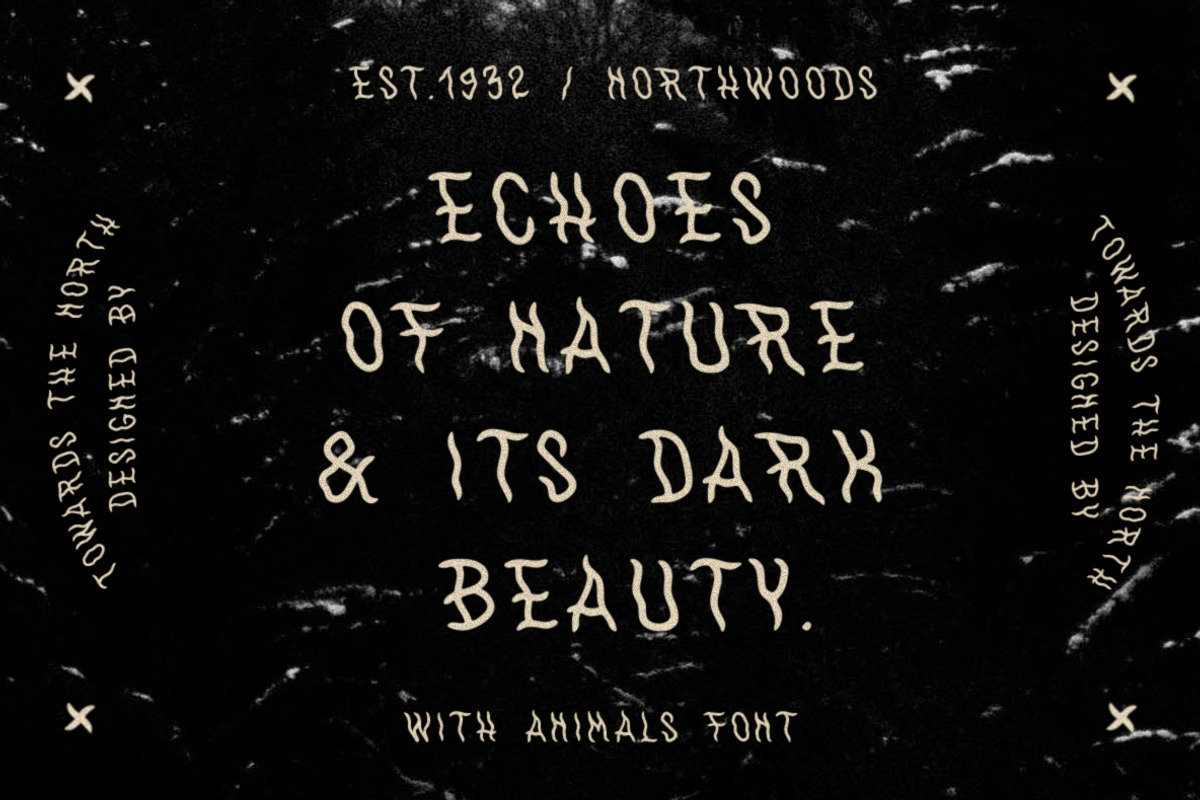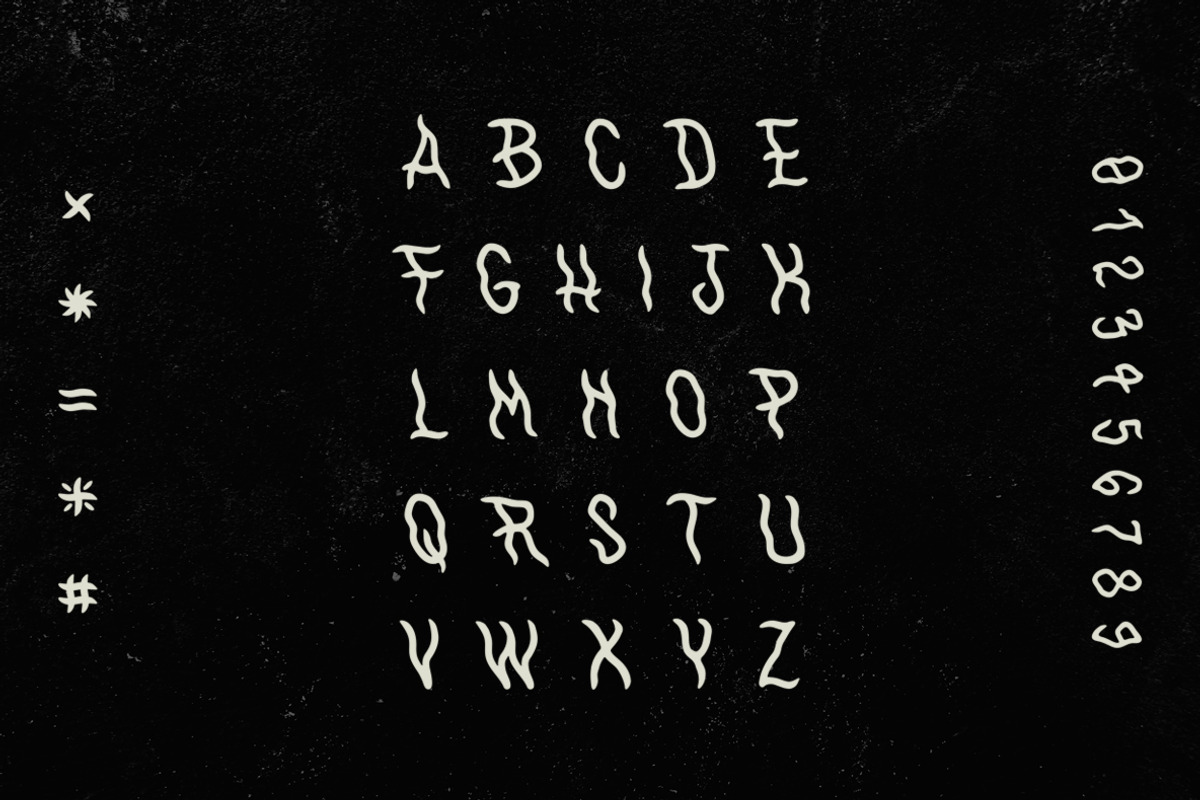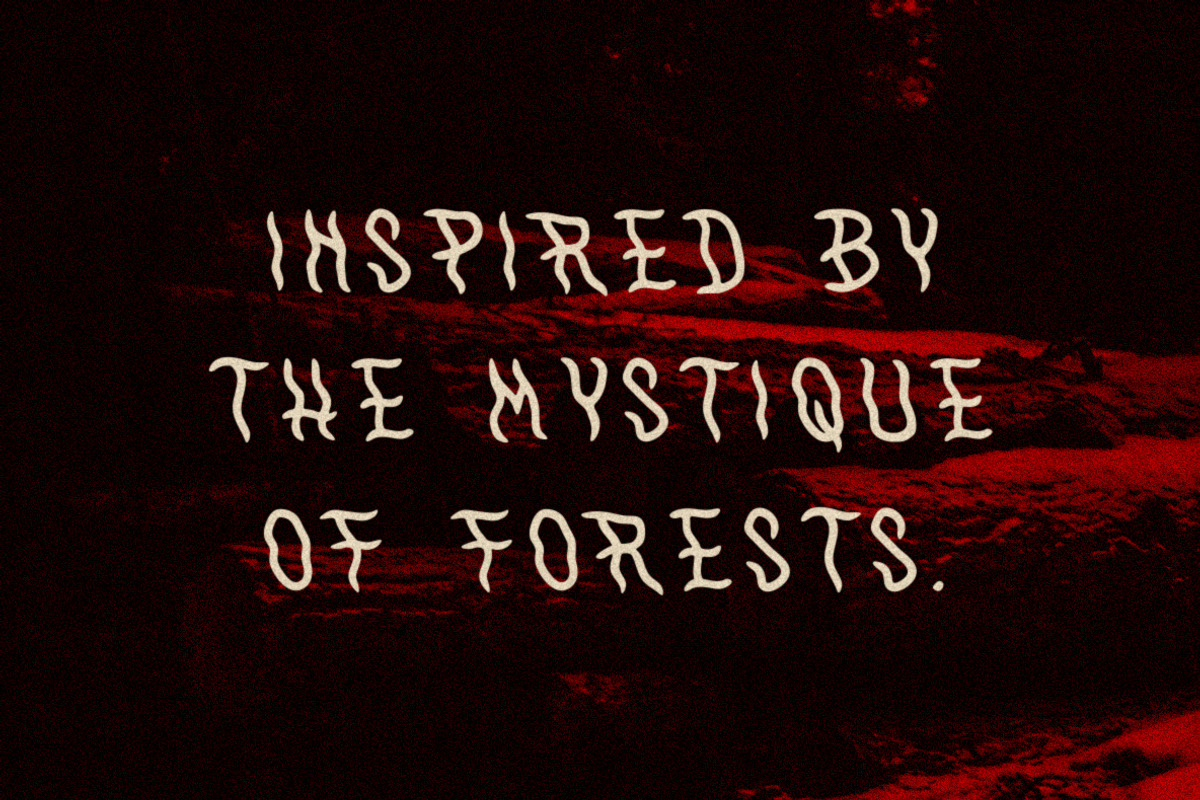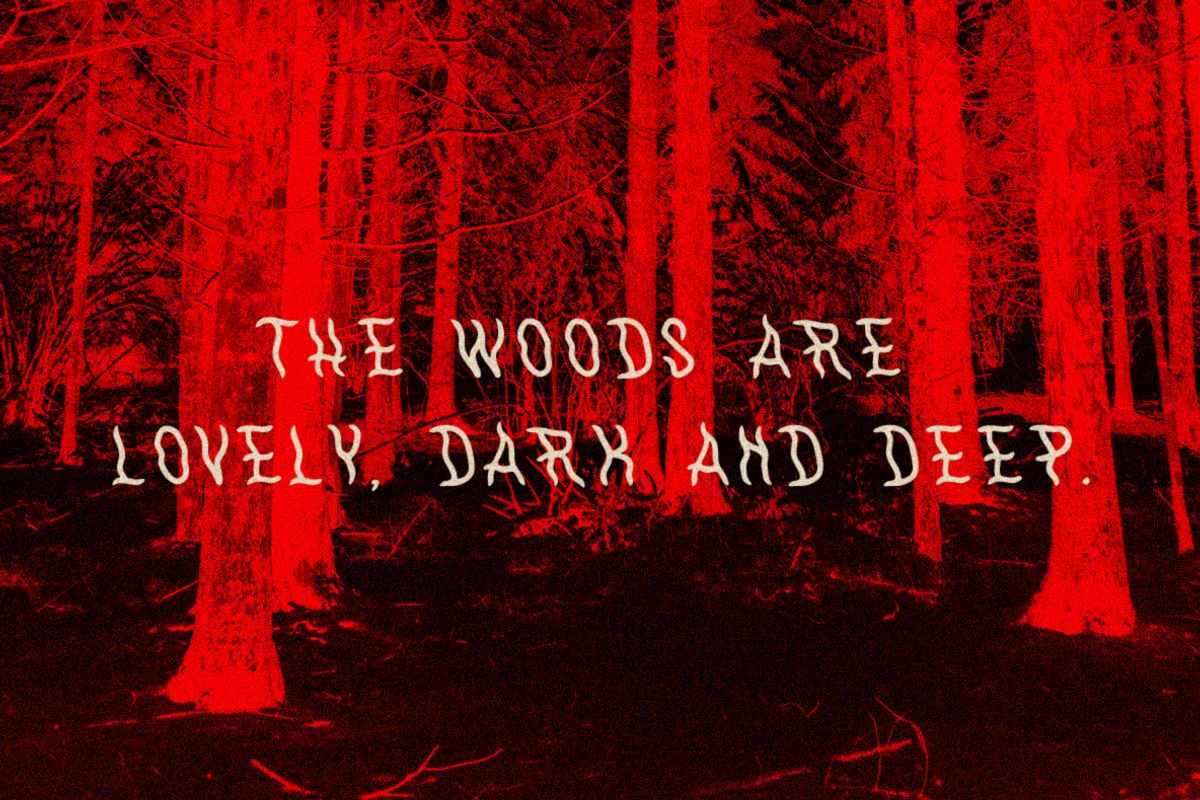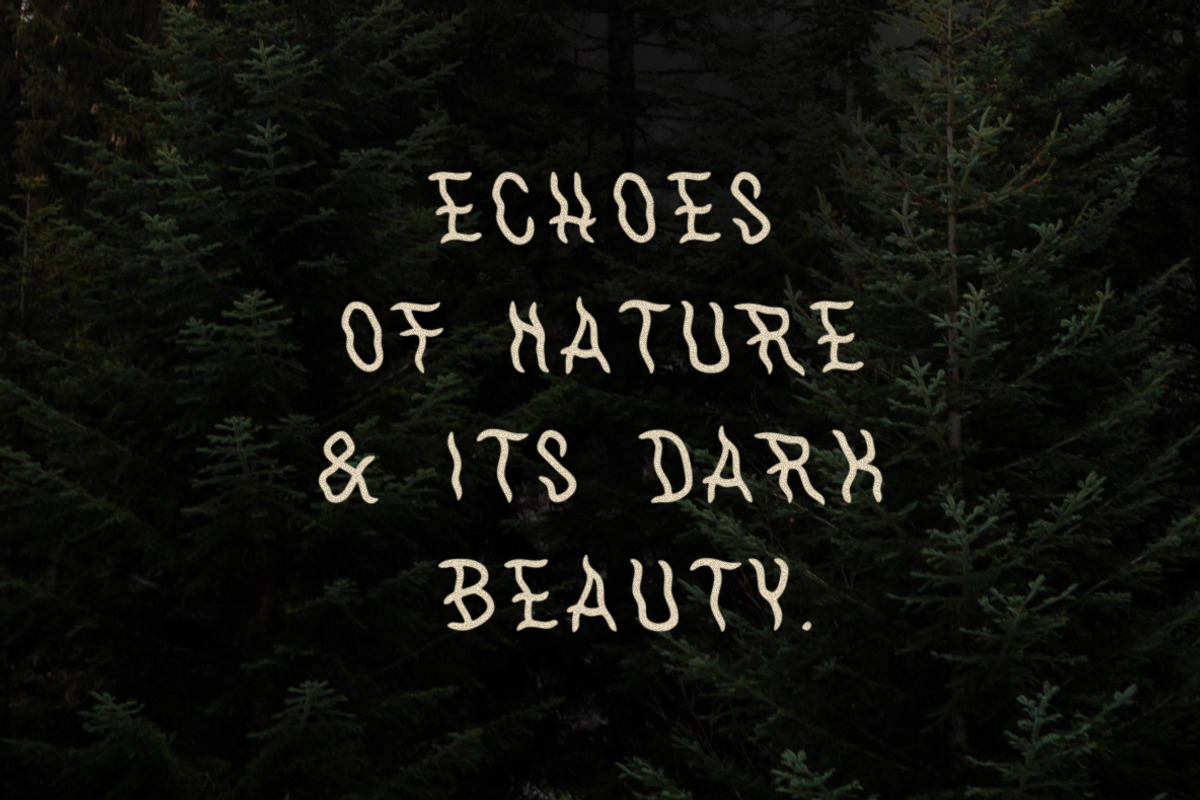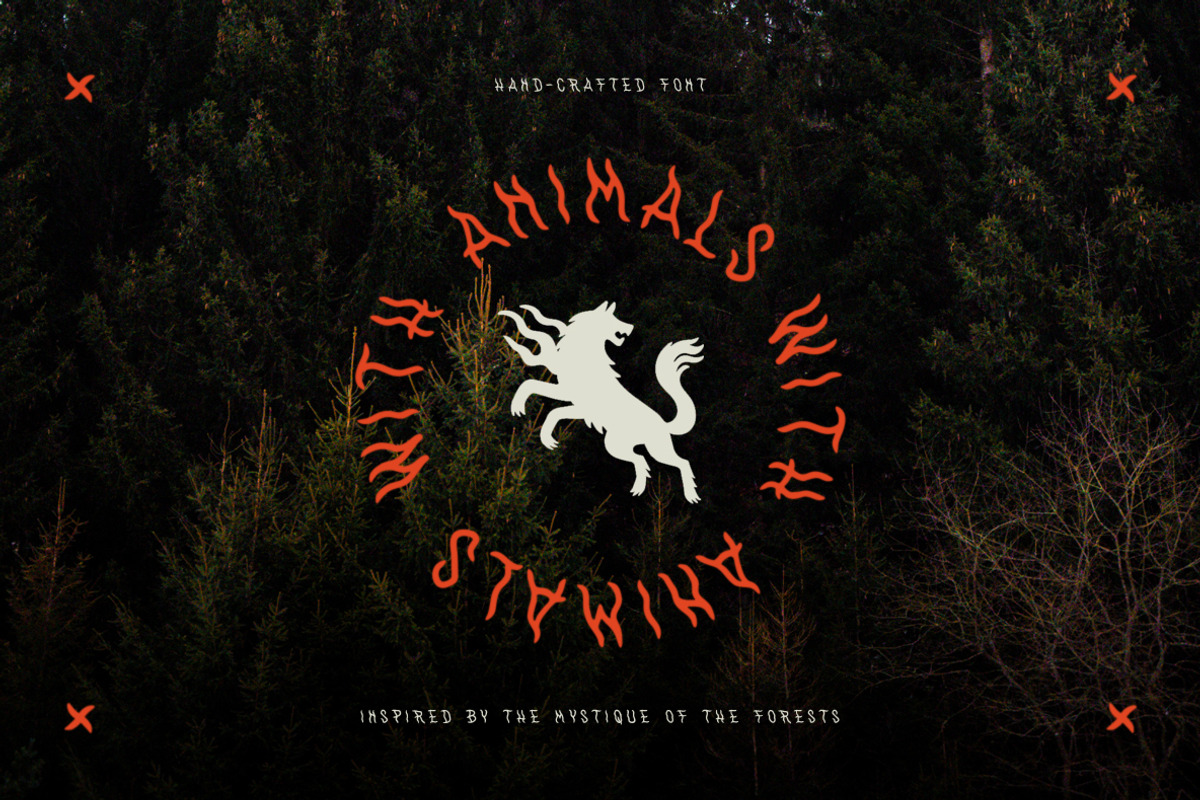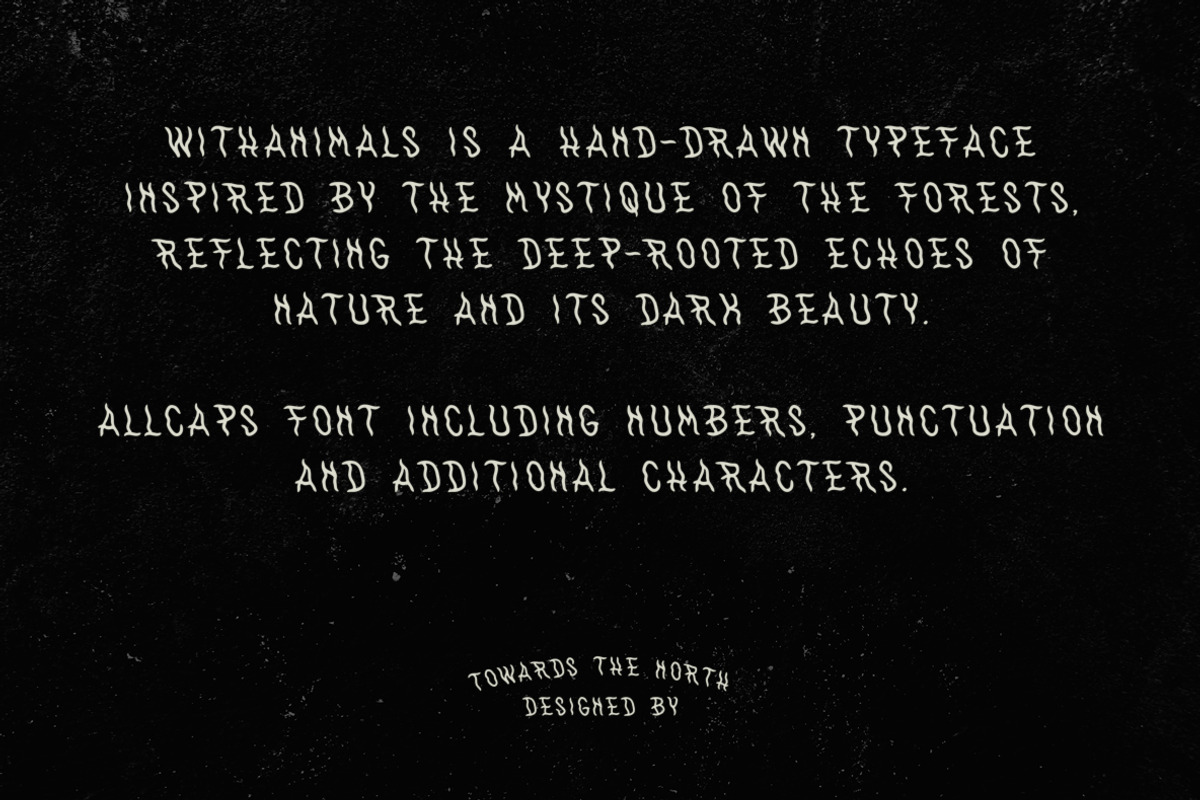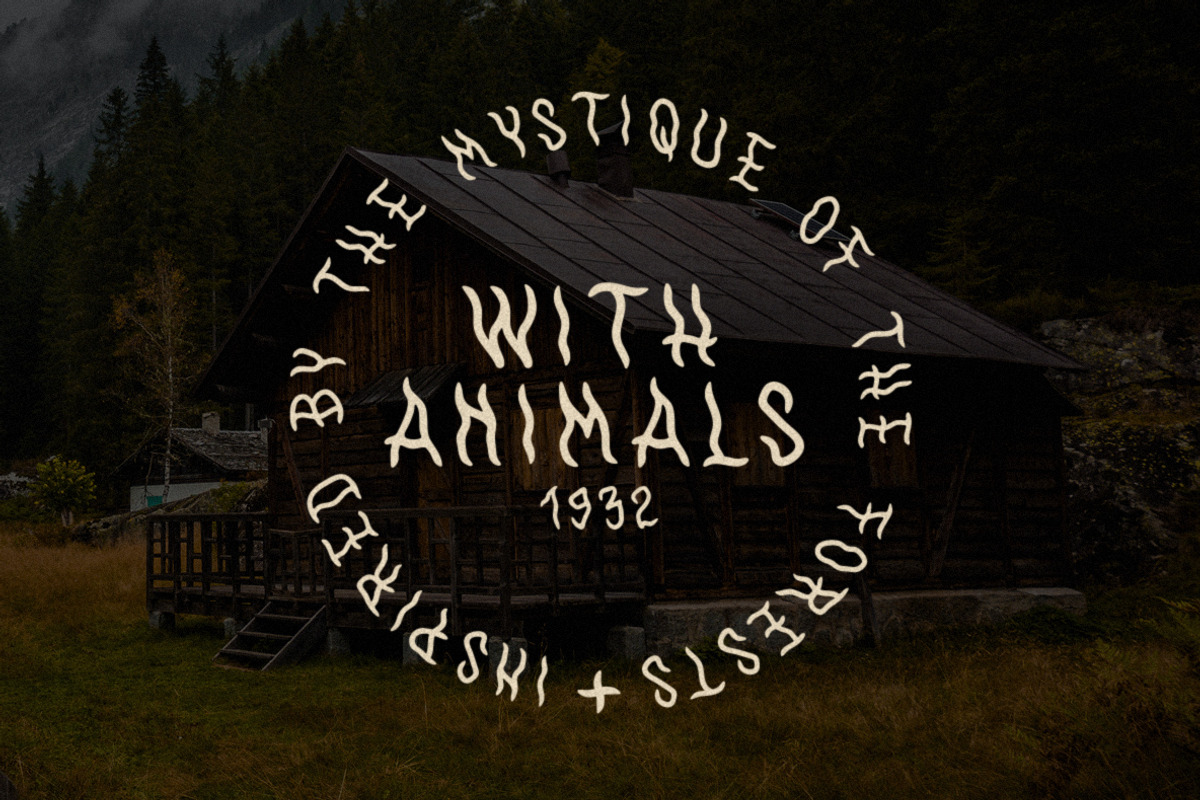
WithAnimals Font
WithAnimals is a hand-drawn typeface inspired by the mystique of the forests, reflecting the deep-rooted echoes of nature and its dark beauty. Allcaps font including numbers, punctuation and additional characters.